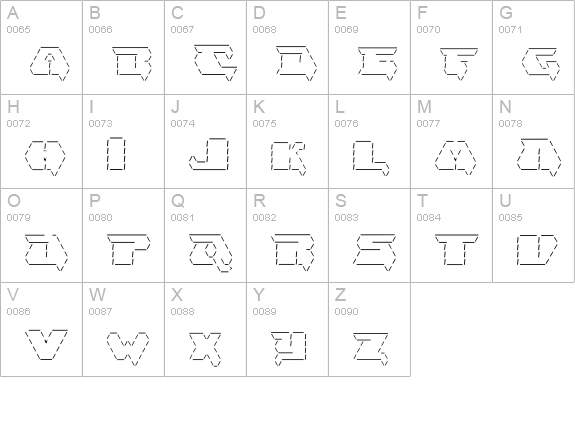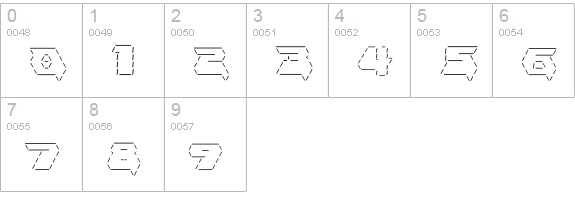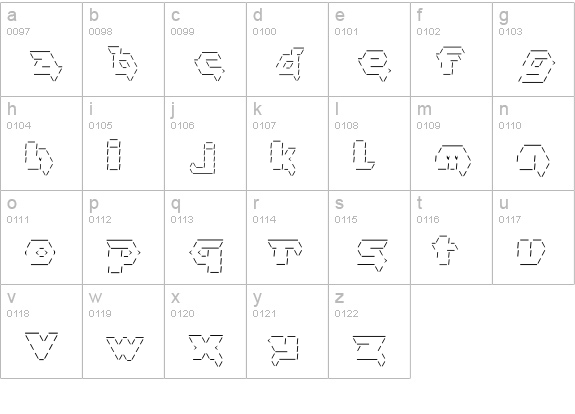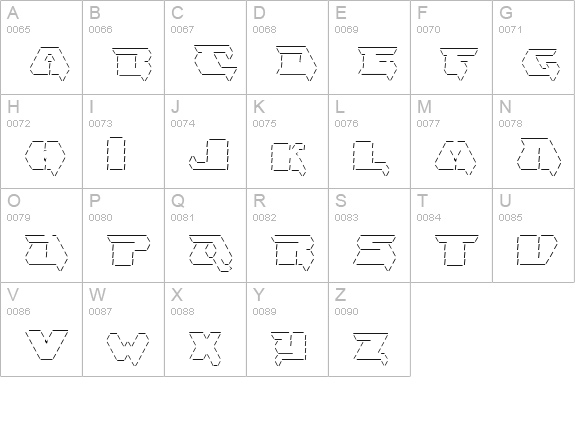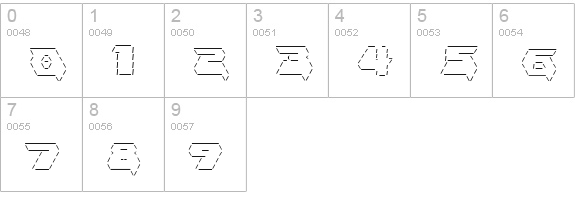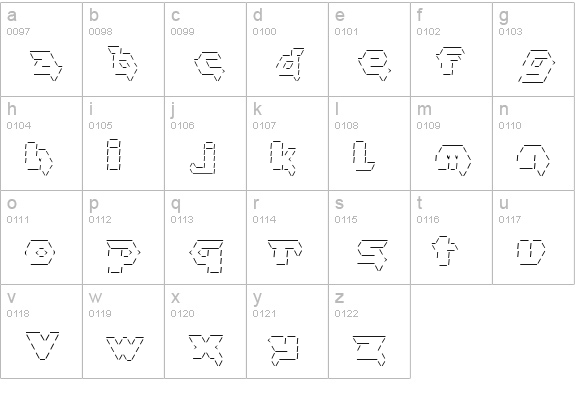
Asciid Font Details
The Asciid font is a versatile and modern typeface that exudes sophistication and style. With its clean lines and sharp edges, Asciid is perfect for a wide range of design projects, from branding to editorial layouts. This font offers a sleek and professional look that will elevate any design to the next level. Best of all, Asciid is completely free to download at FontsMarket.com, making it accessible to designers of all levels. Whether you're working on a personal project or a client's campaign, this font is sure to impress with its sleek design and timeless appeal. Don't miss out on the opportunity to enhance your designs with the Asciid font – download it today and see the difference it can make!